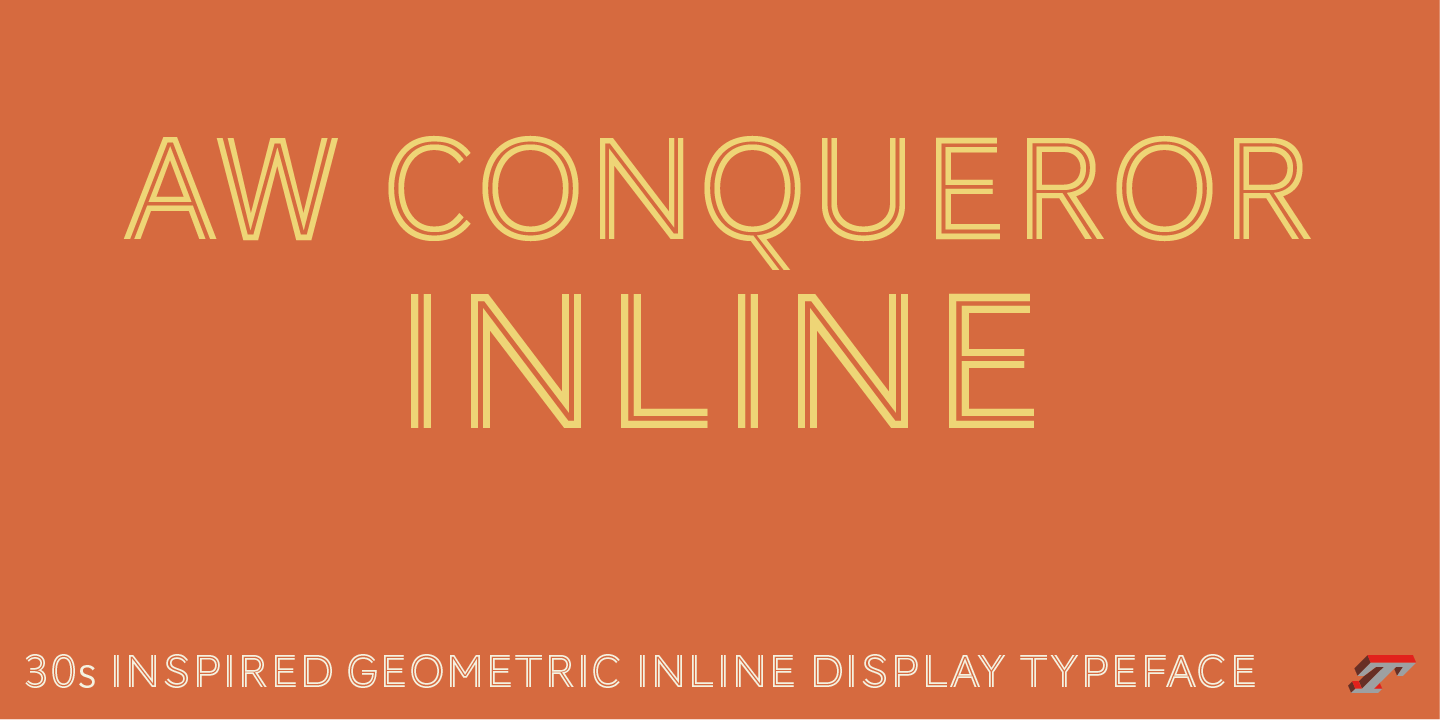
AW Conqueror Std Inline Font is perfect for commanding design projects including military-themed branding, strategic consulting firms, victory celebration materials, championship campaigns, competitive gaming logos, leadership training programs, conquest-themed events, and triumphant marketing initiatives. This powerful typeface excels in defense contractors, strategic planning consultancies, victory sports merchandise, military academies, and projects that celebrate strategic excellence and conquering achievements.
What makes AW Conqueror Std Inline Font exciting is its dominant strategic character that perfectly captures the essence of tactical brilliance and victorious leadership. The font features bold inline letterforms with commanding presence that reflects the precision and authority of successful conquest strategies. Its tactical design elements embody the spirit of strategic planning and decisive victory, making it perfect for projects that need to convey dominance, strategic thinking, and unstoppable determination. The carefully crafted inline structure creates an atmosphere of military precision and conquering confidence.
AW Conqueror Std Inline Font comes in multiple family variations including tactical, strategic, victory, and commanding styles. Each weight maintains the distinctive conquest character while offering different levels of strategic intensity and leadership presence. The font family includes military alternates, victory ligatures, and tactical variations that provide designers with comprehensive options for creating truly powerful and strategically authentic typographic compositions that celebrate conquering excellence.
Whether you're designing military branding, creating strategic marketing materials, or developing victory promotional graphics, AW Conqueror Std Inline Font Free Download provides the perfect typographic battlefield for projects that celebrate strategic mastery and conquering achievement. This extraordinary typeface transforms ordinary text into compelling declarations of tactical superiority and victorious leadership. Download this commanding font today and conquer your design projects with the strategic precision and dominant authority that captures the eternal spirit of victory and conquering excellence.